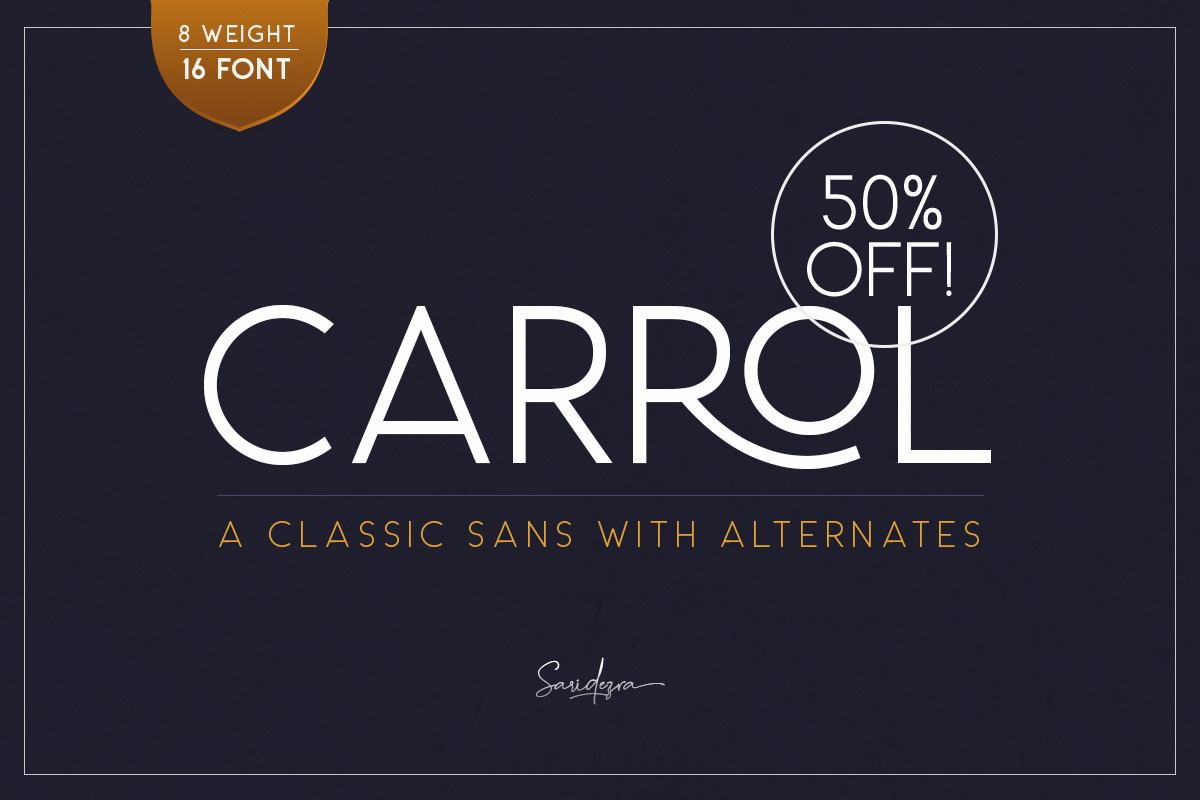
Carrol Sans (16 Fonts) Free Download is a versatile font family that includes 16 different fonts, offering a variety of weights and styles. With its clean lines, modern look, and geometric influences, Carrol Sans is perfect for a wide range of design projects, from branding and logos to website design, packaging, and editorial layouts. Its highly readable design makes it ideal for both digital and print applications.
Using the Carrol Sans (16 Fonts) Free Download gives you the flexibility to create clean, professional typography across various media. Whether you're designing a modern website, creating a brand identity, or working on any project that needs a polished, contemporary look, this font family provides the versatility to meet your needs.